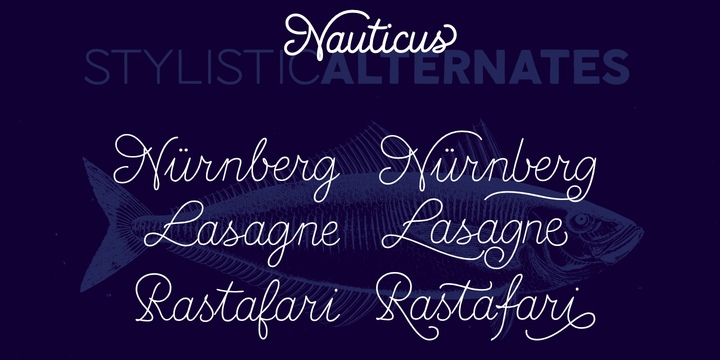
Nauticus Script Font
Nauticus Script Font excels in maritime branding projects, luxury yacht charters, coastal resort signage, seafood restaurant menus, naval museum displays, sailing club logos, marine equipment packaging, oceanographic research presentations, harbor master documentation, and nautical adventure tours. This elegant typeface brings oceanic sophistication and maritime heritage to any sea-inspired design project.
Nauticus Script Font is exciting because it captures the timeless romance and adventurous spirit of maritime exploration with its flowing letterforms that evoke the gentle rhythm of ocean waves and the elegant curves of classic sailing vessels. Its nautical character instantly transports viewers to the golden age of maritime discovery and oceanic adventure.
The Nauticus Script Font family includes Regular weight with decorative swashes, maritime flourishes, anchor-inspired glyphs, and rope-like ornamental elements that enhance the nautical aesthetic, providing designers with authentic tools for creating typography that celebrates the rich traditions of seafaring culture and oceanic exploration.
Marine designers love Nauticus Script Font for its exceptional ability to evoke specific maritime themes and create immersive coastal atmospheres through carefully crafted letterforms. The font's flowing character and nautical details create immediate associations with ocean adventures, luxury sailing experiences, and the timeless appeal of maritime culture that resonates with seafaring enthusiasts worldwide.
The design inspiration behind Nauticus Script Font draws from historical ship logs, maritime manuscripts, and the rich calligraphic traditions of naval documentation, making it particularly effective for brands seeking to establish connections with authentic maritime heritage and oceanic sophistication. Creative teams working on luxury marine services find this font essential for conveying credibility.
Whether used for exclusive yacht clubs, coastal luxury resorts, or premium maritime services, Nauticus Script Font delivers the perfect fusion of nautical authenticity and oceanic elegance. Its maritime appeal and seafaring sophistication make it an indispensable choice for brands that celebrate the adventure, heritage, and timeless romance of life at sea.